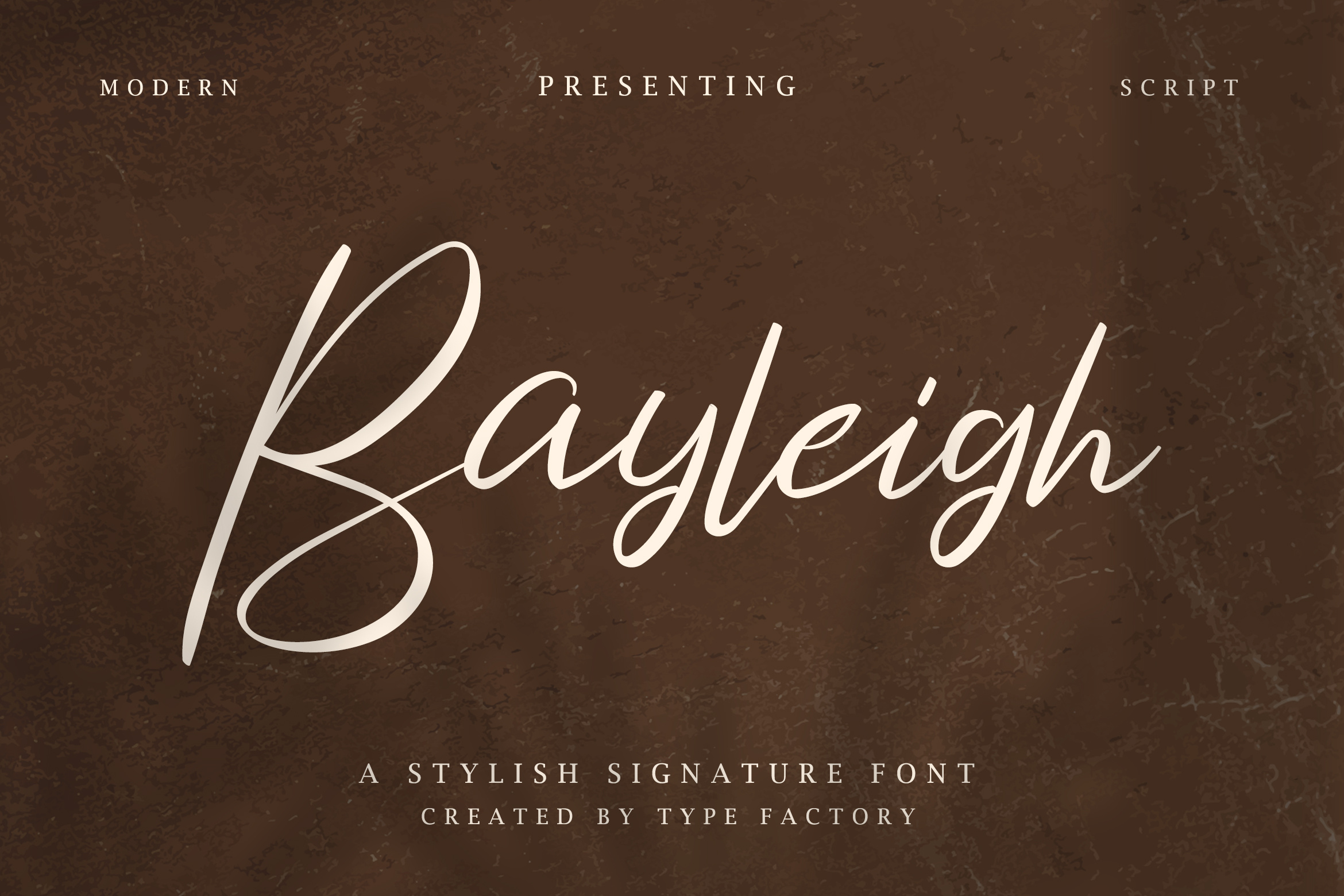
Bayleigh - Stylish Signature Font
Bayleigh is a stylish signature font.
Bayleigh is great for branding design, signature designs, and more; this font is legible and clean, making it an optimum font for a ton of uses.